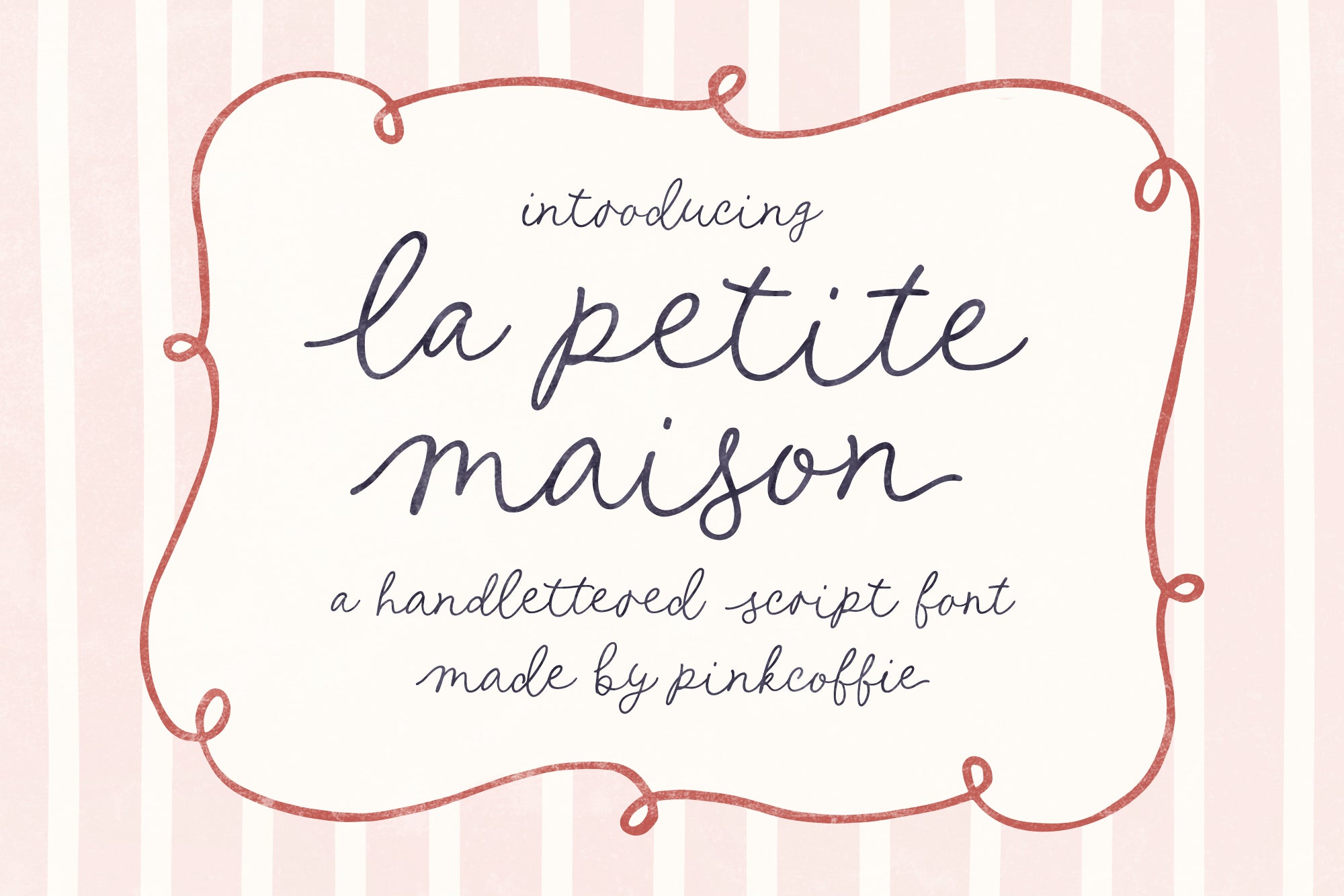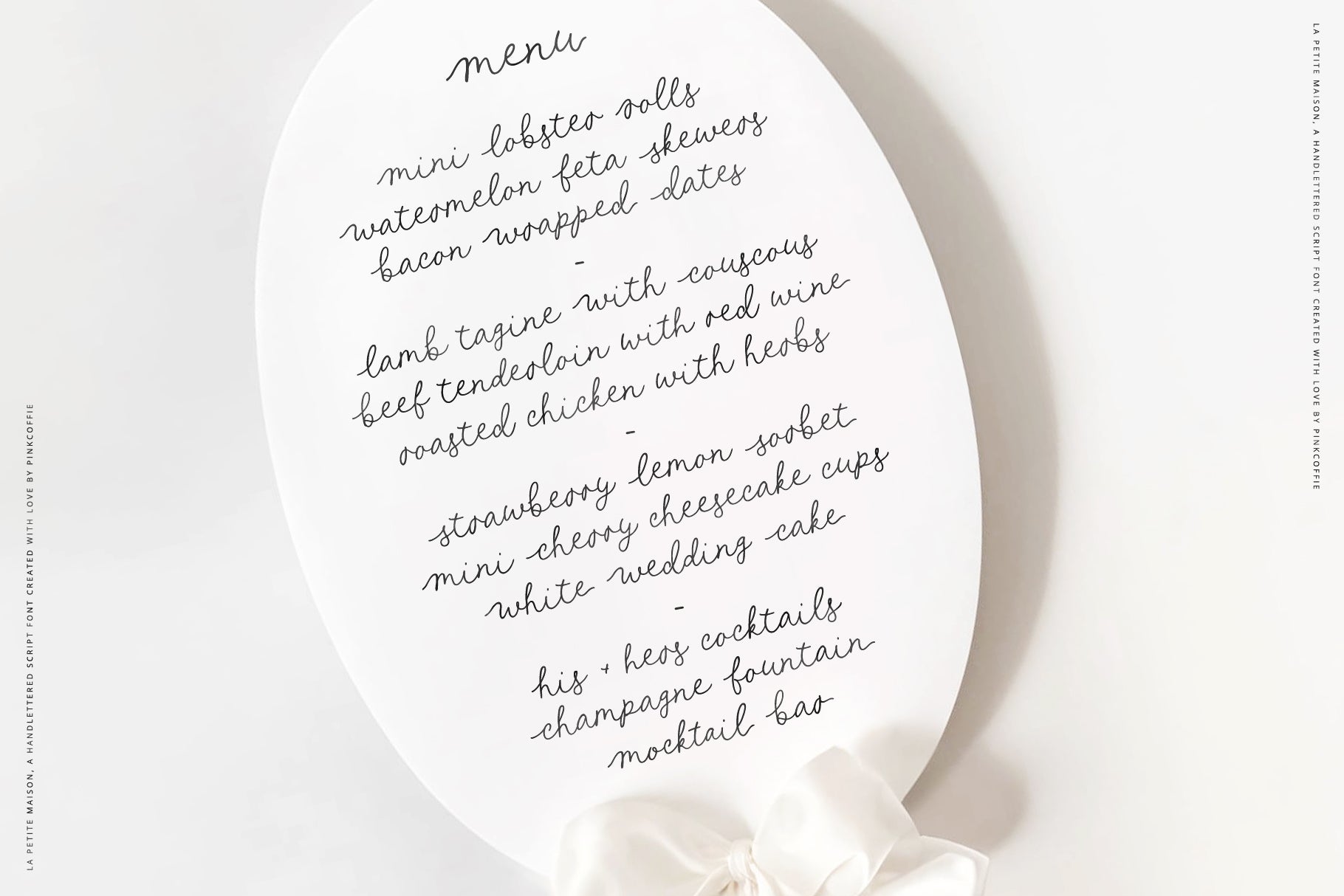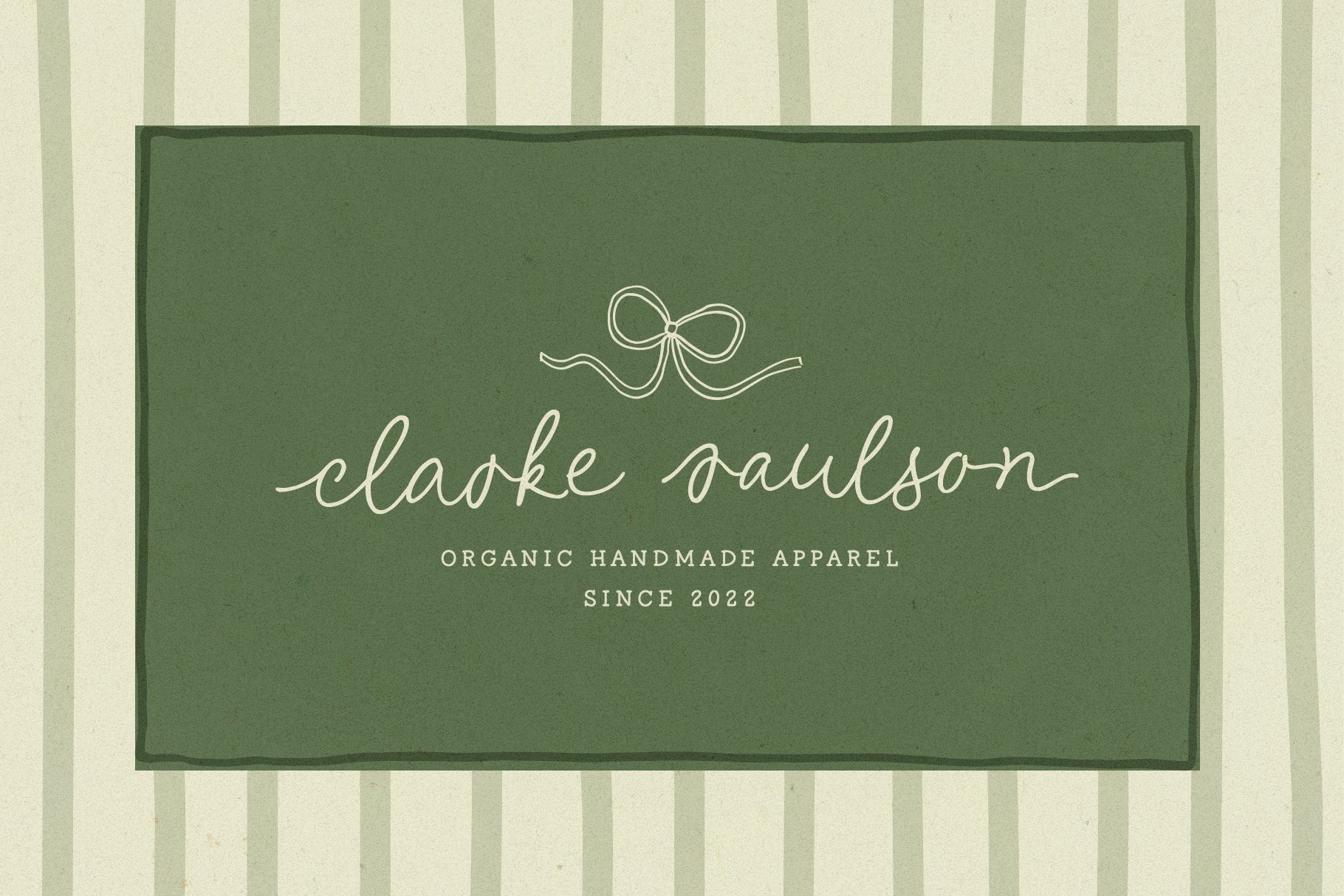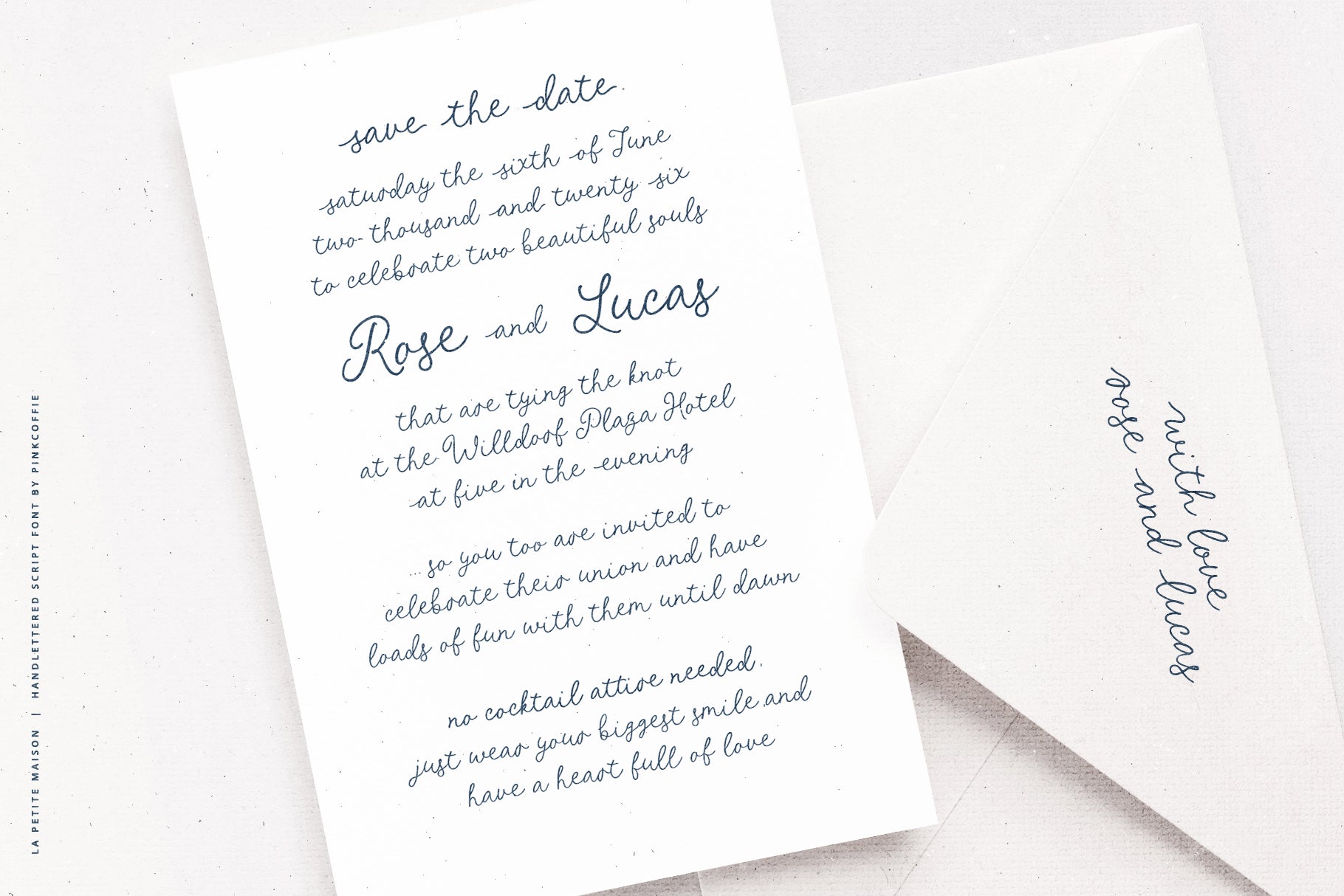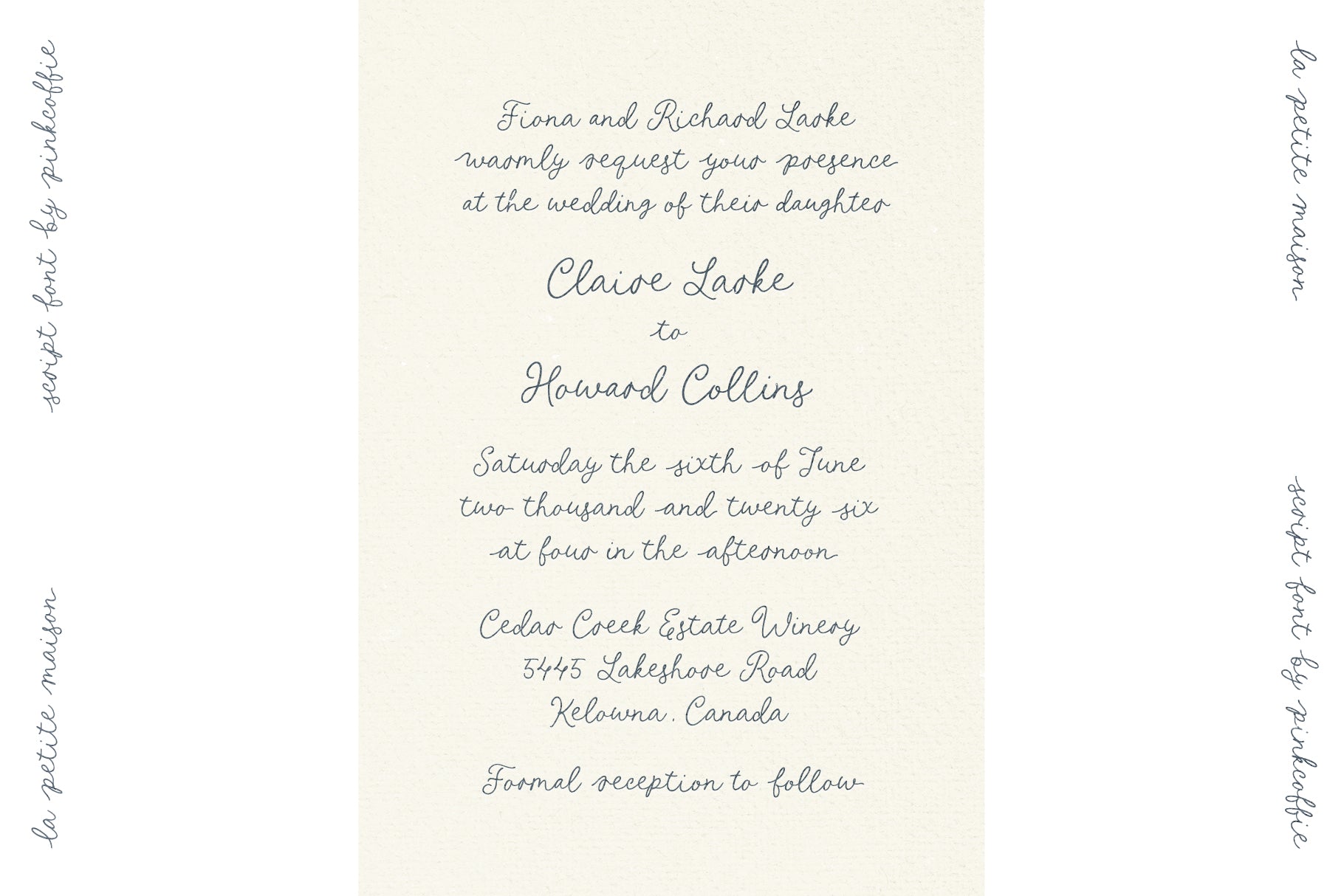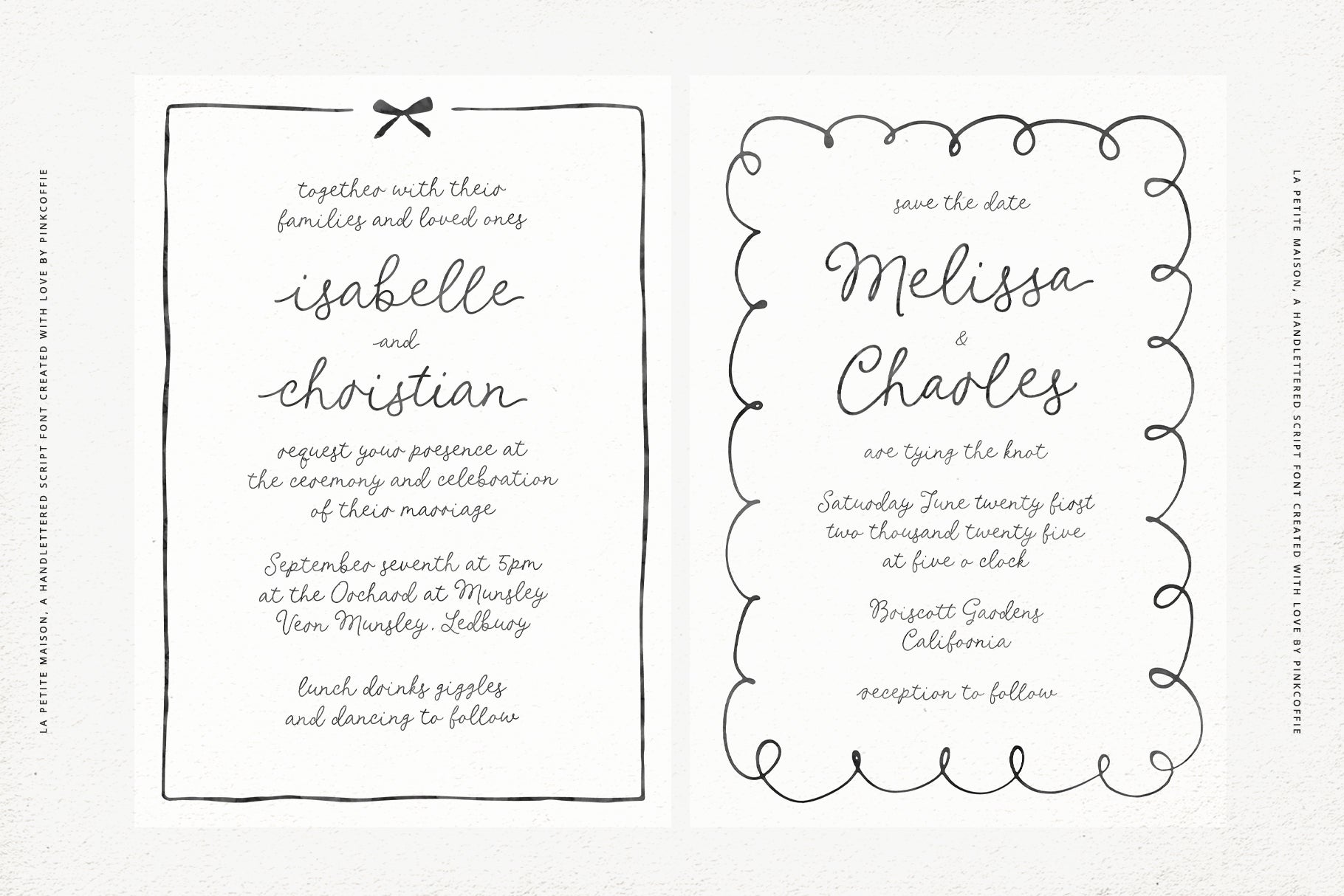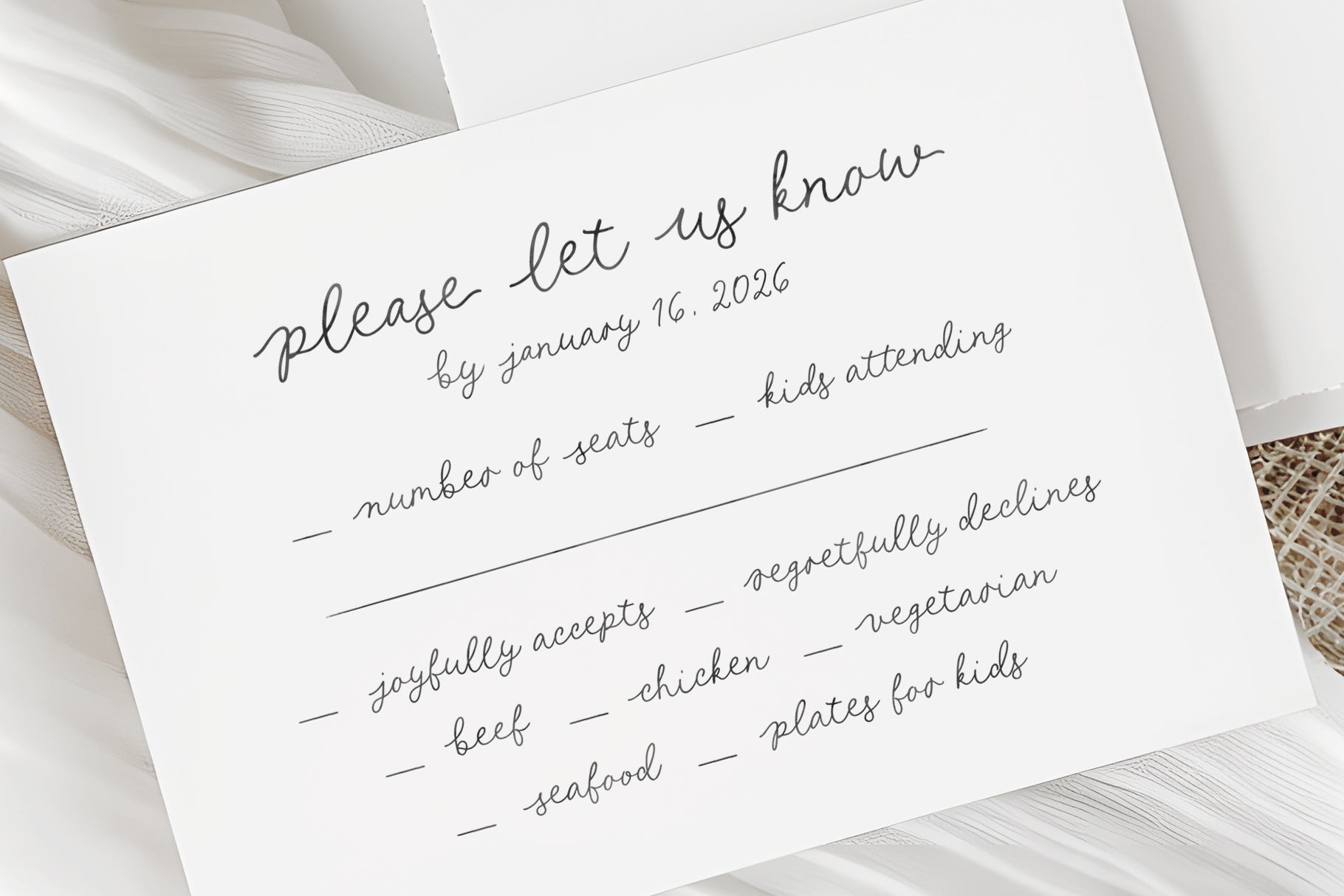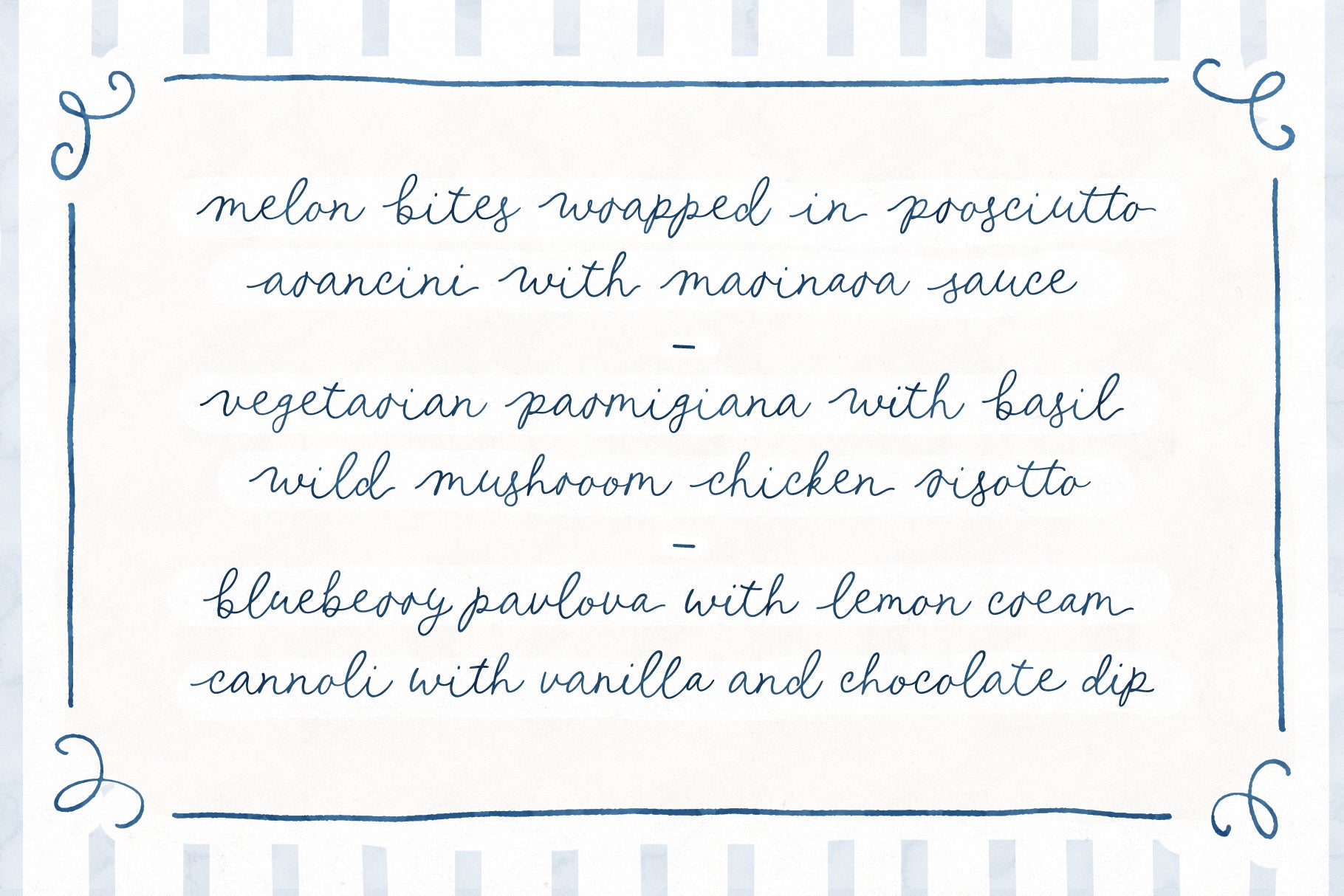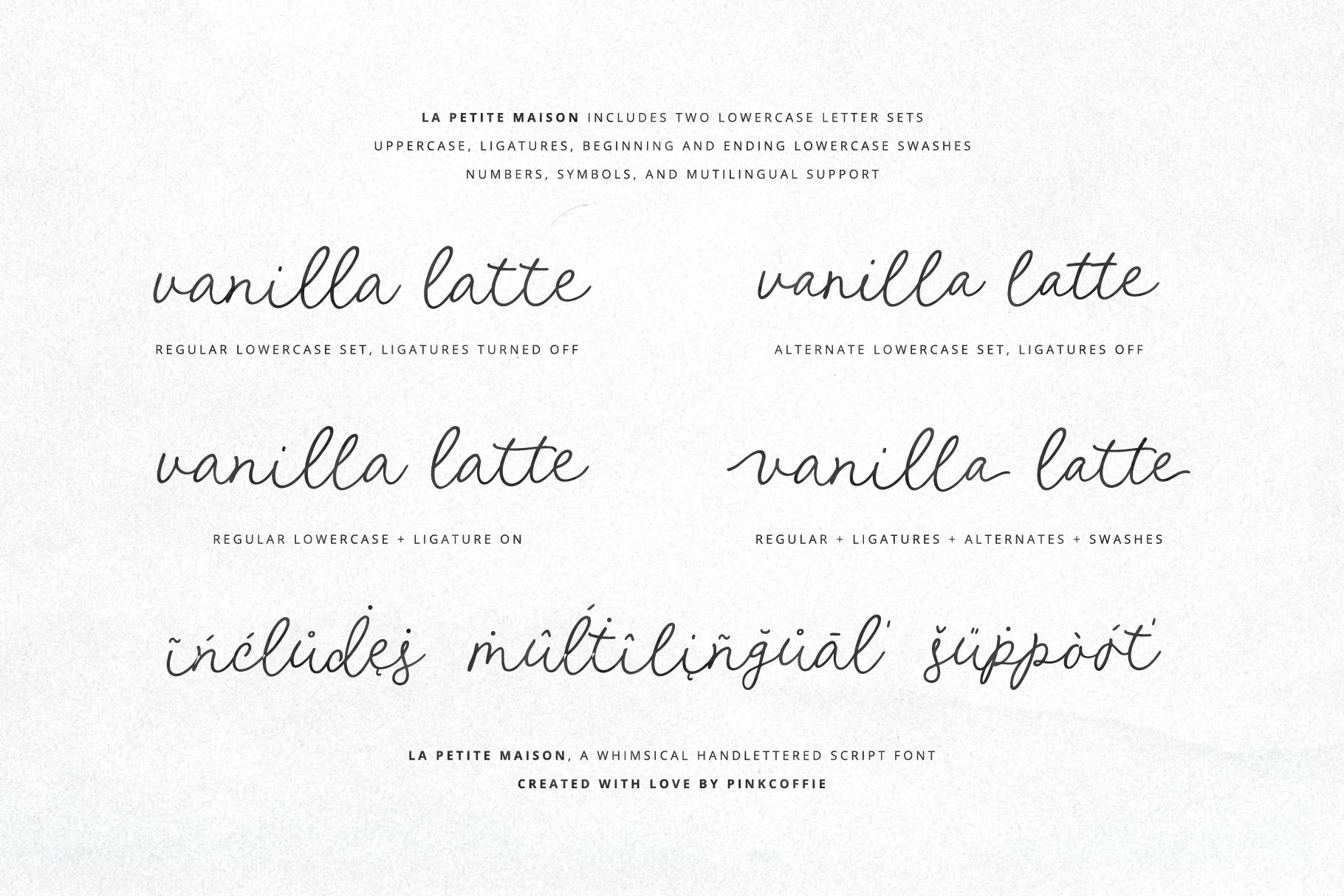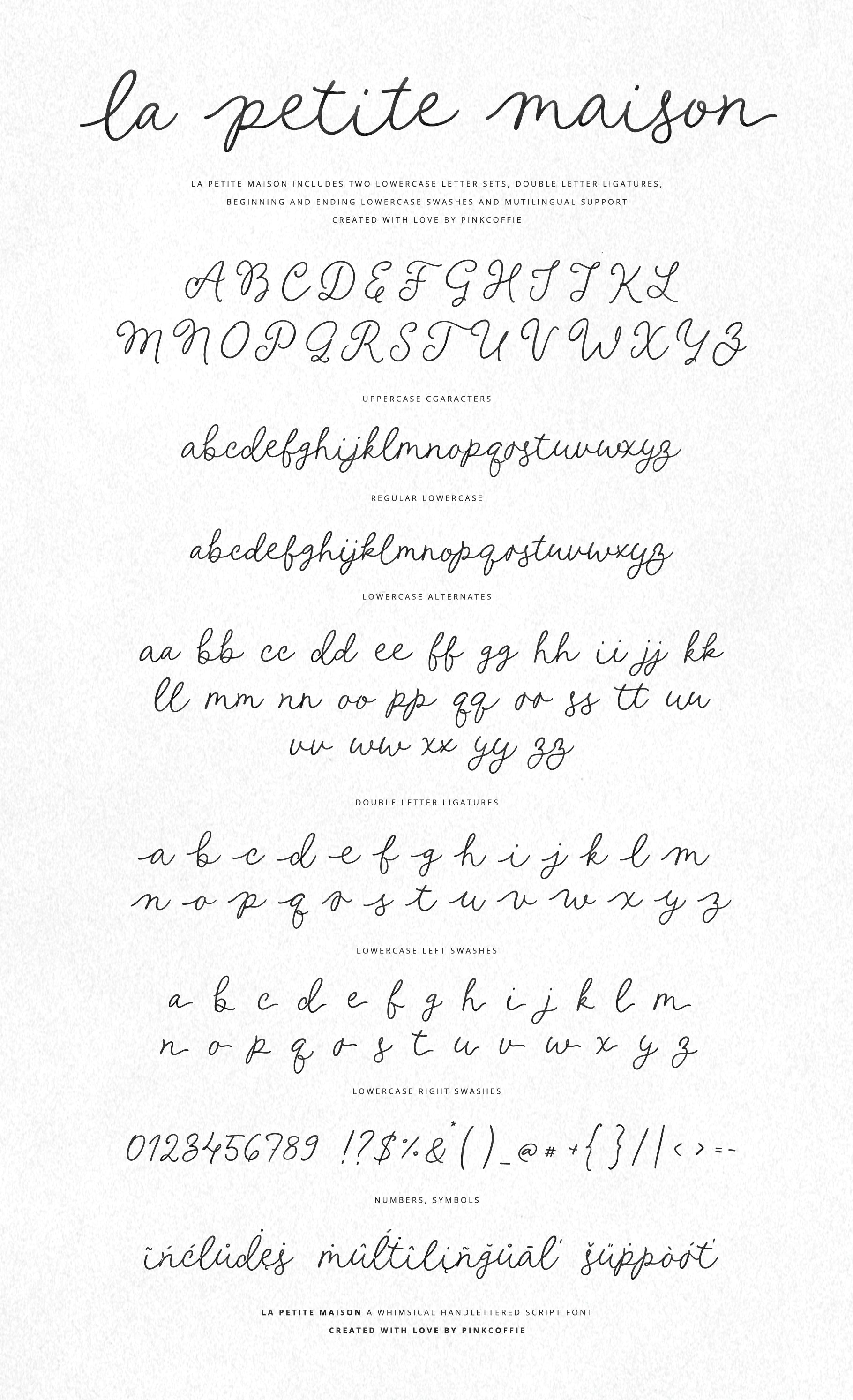
La Petite Maison
Say hello to La Petite Maison, a whimsical handlettered script font with a playful yet elegant Parisienne vibe and a sprinkle of quirky feminine charm. La Petite Maison includes two lowercase letter sets, double letter ligatures, uppercase, numbers, symbols and beginning & ending lowercase swashes to mix and match.
This lovely, French inspired script can be used in a variety of products such as wedding stationery, reception menus, wedding seating, cocktail menus, feminine logos & branding, blogs, social media, prints and much, much more!
- La Petite Maison - PUA encoded font featuring all standard characters, multilingual support and OpenType features such as lowercase letter alternates, lowercase swashes, and double letter ligatures.